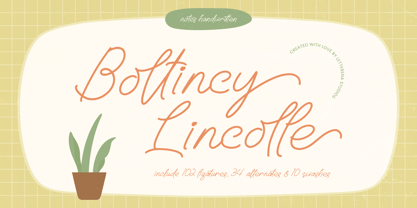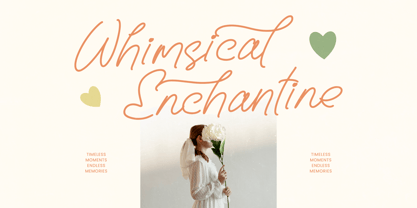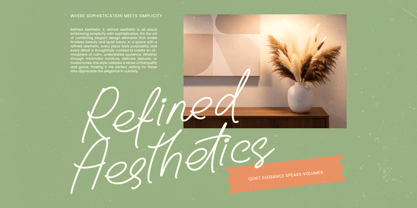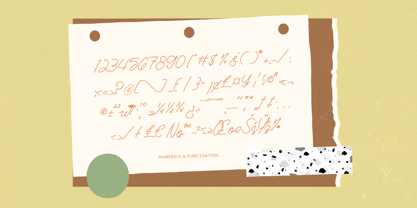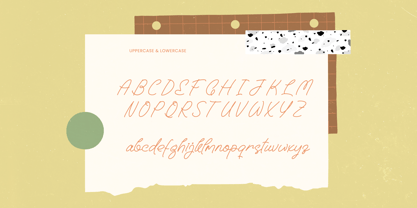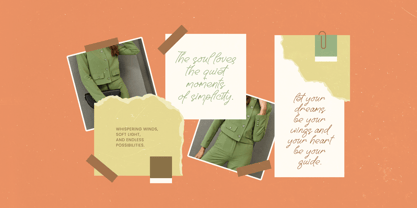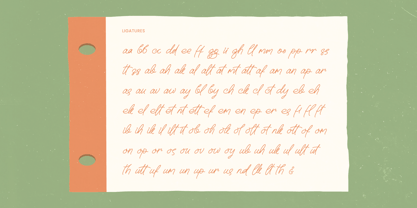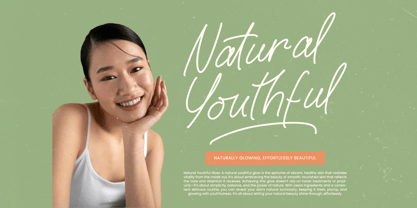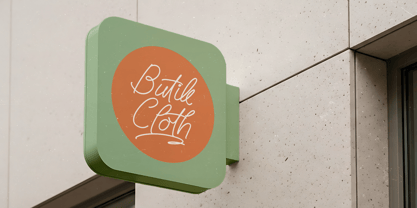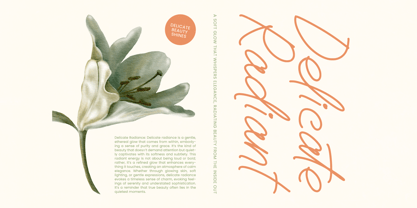
Boltincy Lincolle
by Stylishtype Studio
The Boltincy Lincolle Font Family was designed by Heru Utama Putra and published by Stylishtype Studio. Boltincy Lincolle contains 2 styles and family package options. More about this family
Boltincy Lincolle is a charming handwritten script typeface designed to capture the warmth and authenticity of natural note-style lettering. With smooth flowing strokes and expressive curves, this font delivers a soft, friendly personality while maintaining excellent readability for modern design projects. Featuring 102 ligatures, 34 alternates, and 10 swashes, Boltincy Lincolle provides rich stylistic flexibility, allowing designers to create seamless letter connections and elegant finishing touches. Perfect for branding, social media graphics, invitations, packaging, lifestyle products, stationery, and creative editorial layouts, this handwritten font brings a personal, heartfelt touch to both print and digital applications.